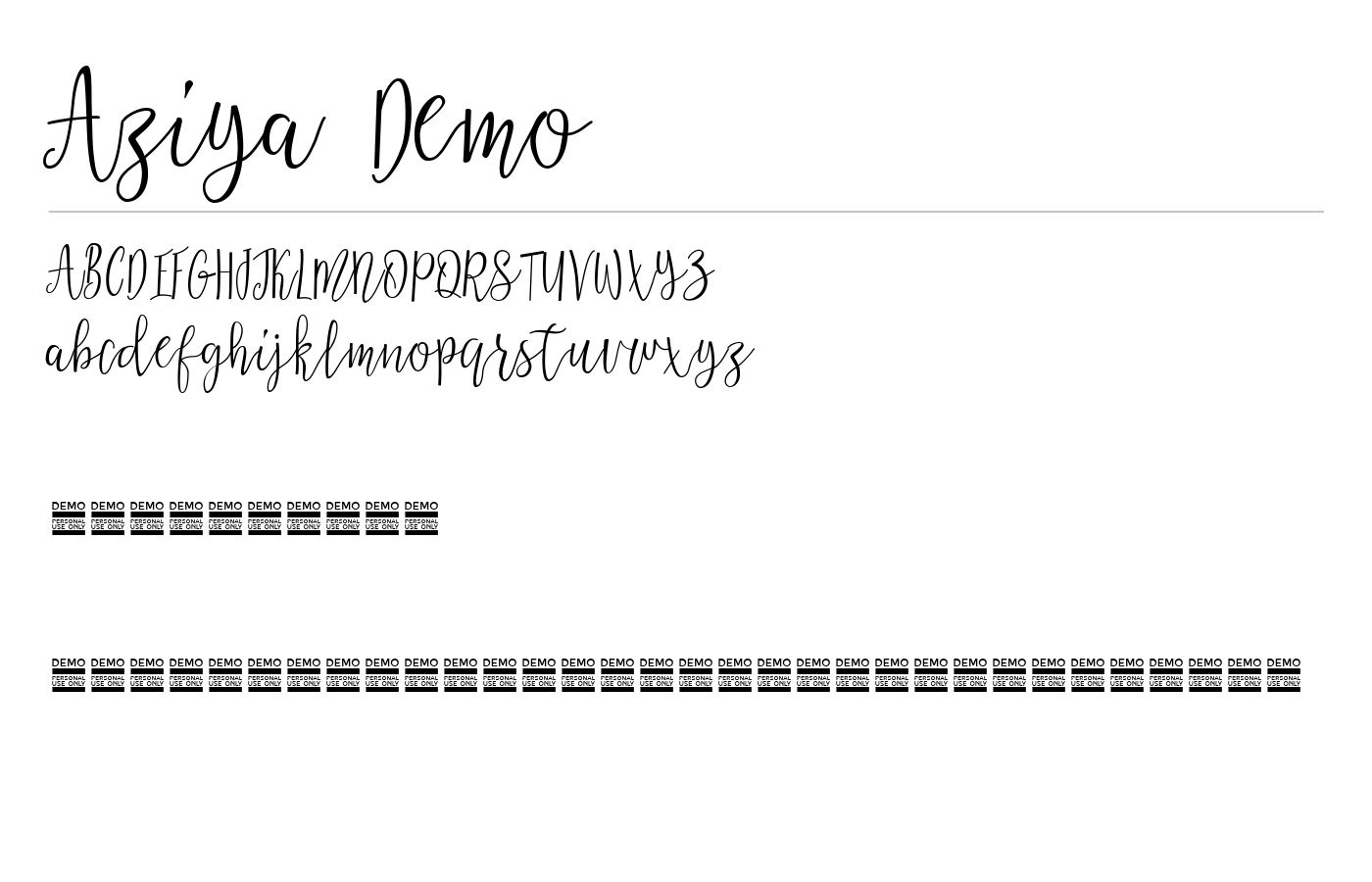
Aziya Demo is a delicate, handwritten script font with a light weight and elegant, flowing strokes that create a charming, personal feel. Its tall, narrow letterforms and playful curves make it ideal for invitations, branding, and projects that seek a warm, stylish, and approachable look. This font works beautifully in settings that benefit from a touch of refinement and individuality, such as fashion, lifestyle, and creative designs.
Aziya Demo Font
About Aziya Demo Font
| Designer | Rakan and Arief |